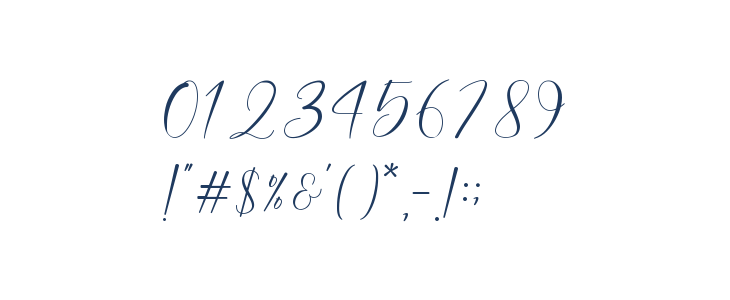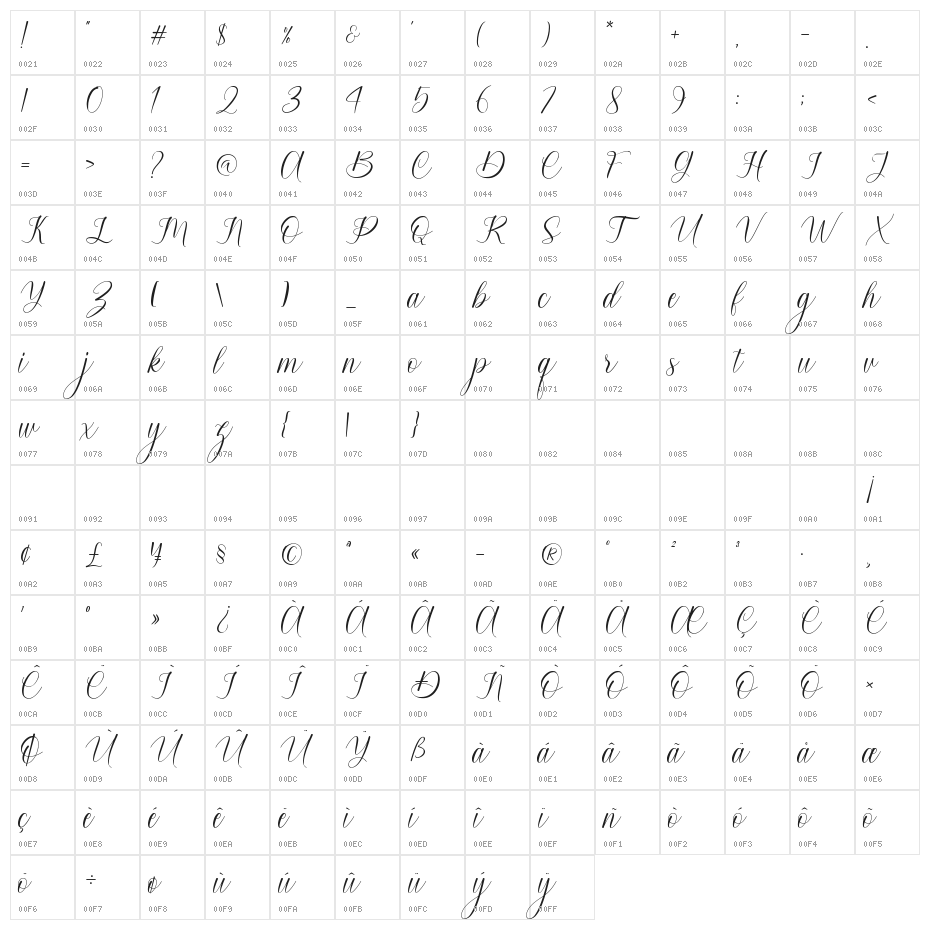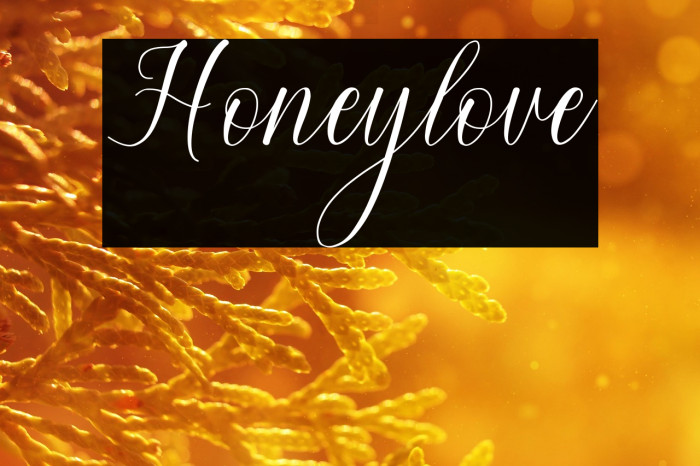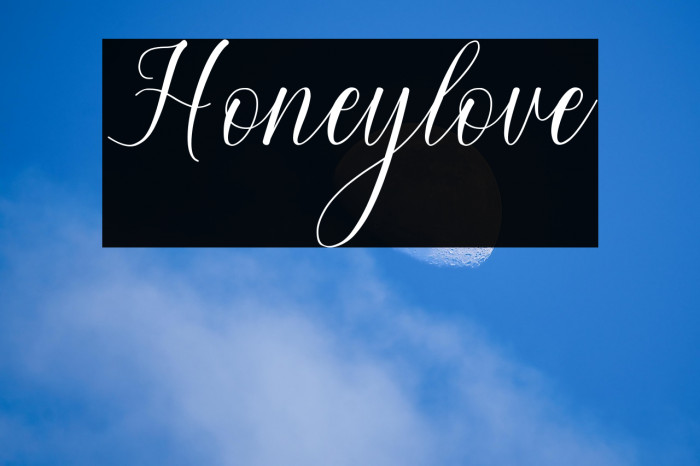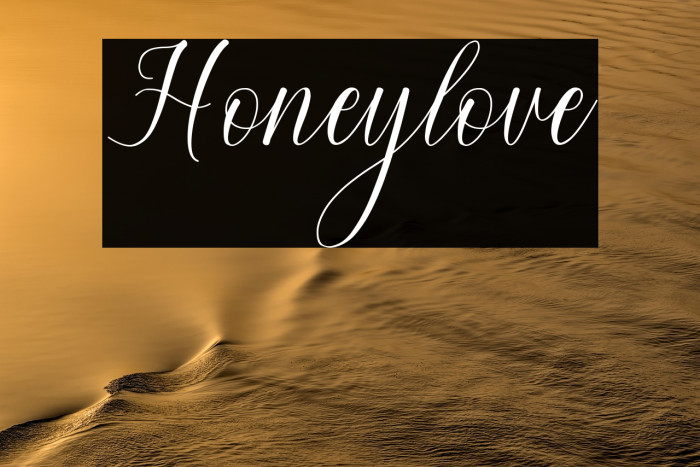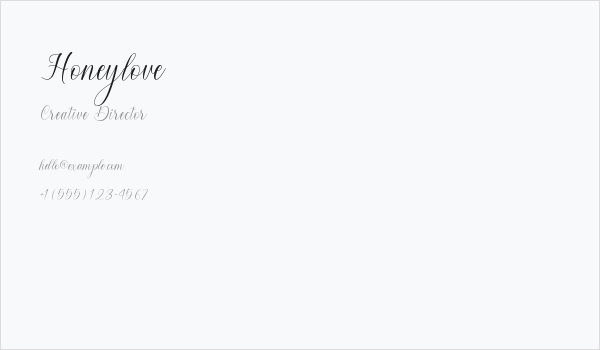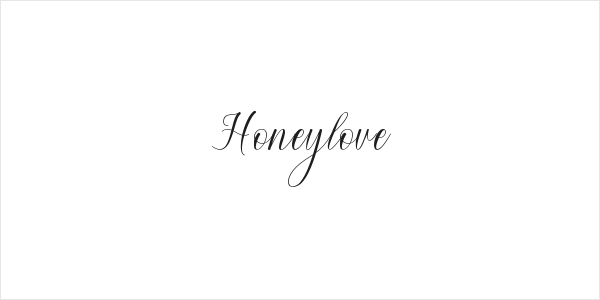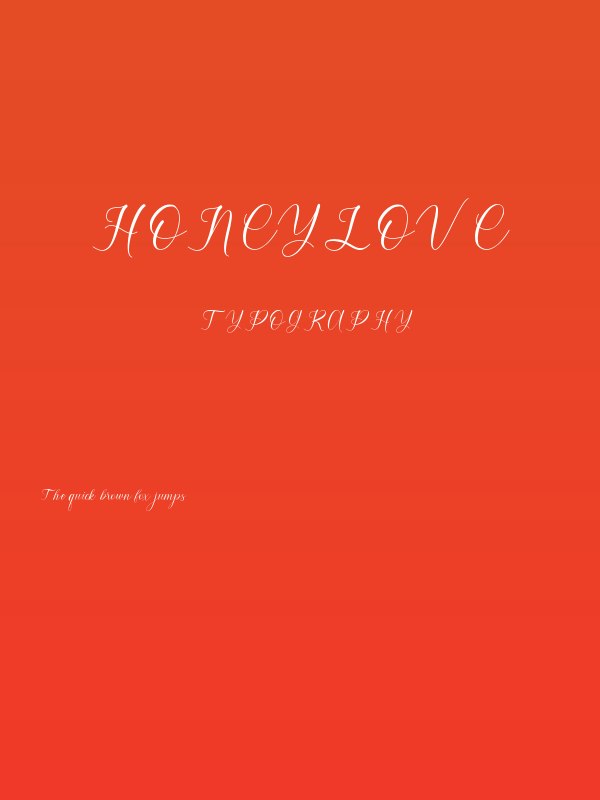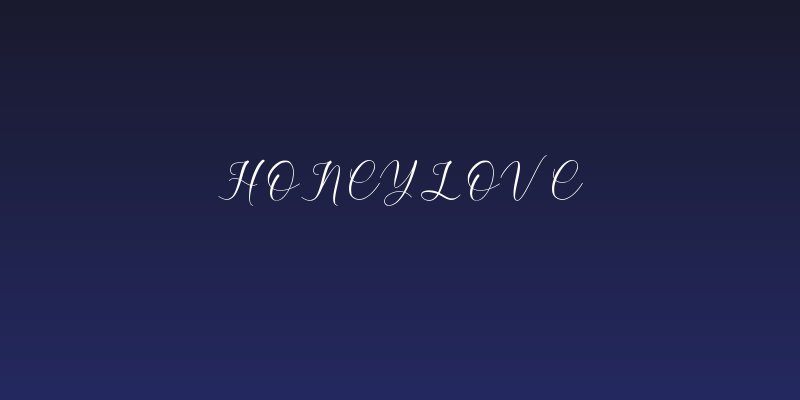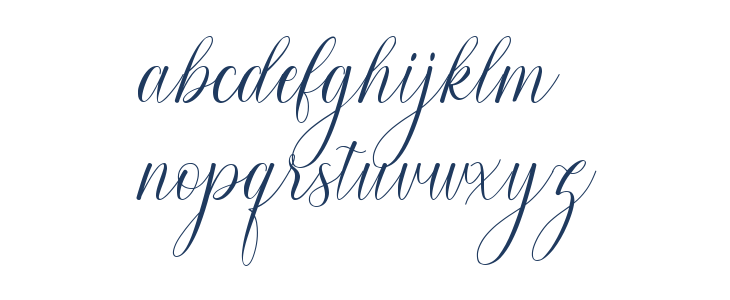
Honeylove Font
Honeylove Description
This elegant script font features flowing, cursive letters with a refined and sophisticated appearance. The uppercase letters are gracefully connected, while the lowercase letters exhibit a smooth and fluid style, enhancing the font's overall elegance. The numerals maintain the same cursive style, ensuring consistency across all characters. Special characters are designed with the same attention to detail, making this font versatile for various design needs. The font's delicate strokes and high contrast between thick and thin lines add to its charm, making it suitable for formal and decorative purposes.
| Proposed Projects | Ideal for wedding invitations, elegant branding, greeting cards, and upscale packaging. |